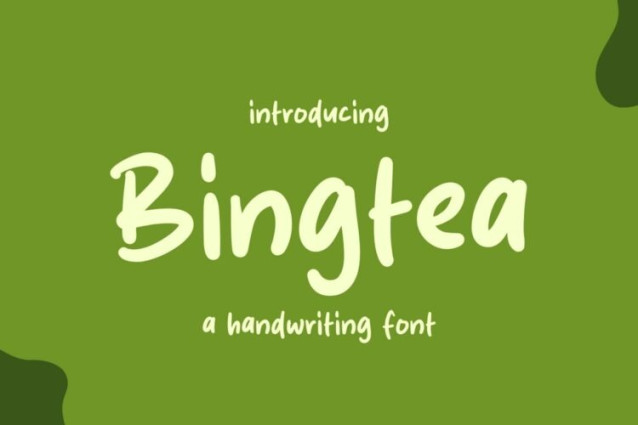
Bingtea Font
Bingtea Font is a simple and friendly handwritten font. Its natural and unique style makes it incredibly fitting to a large pool of designs. The only limit is your imagination!